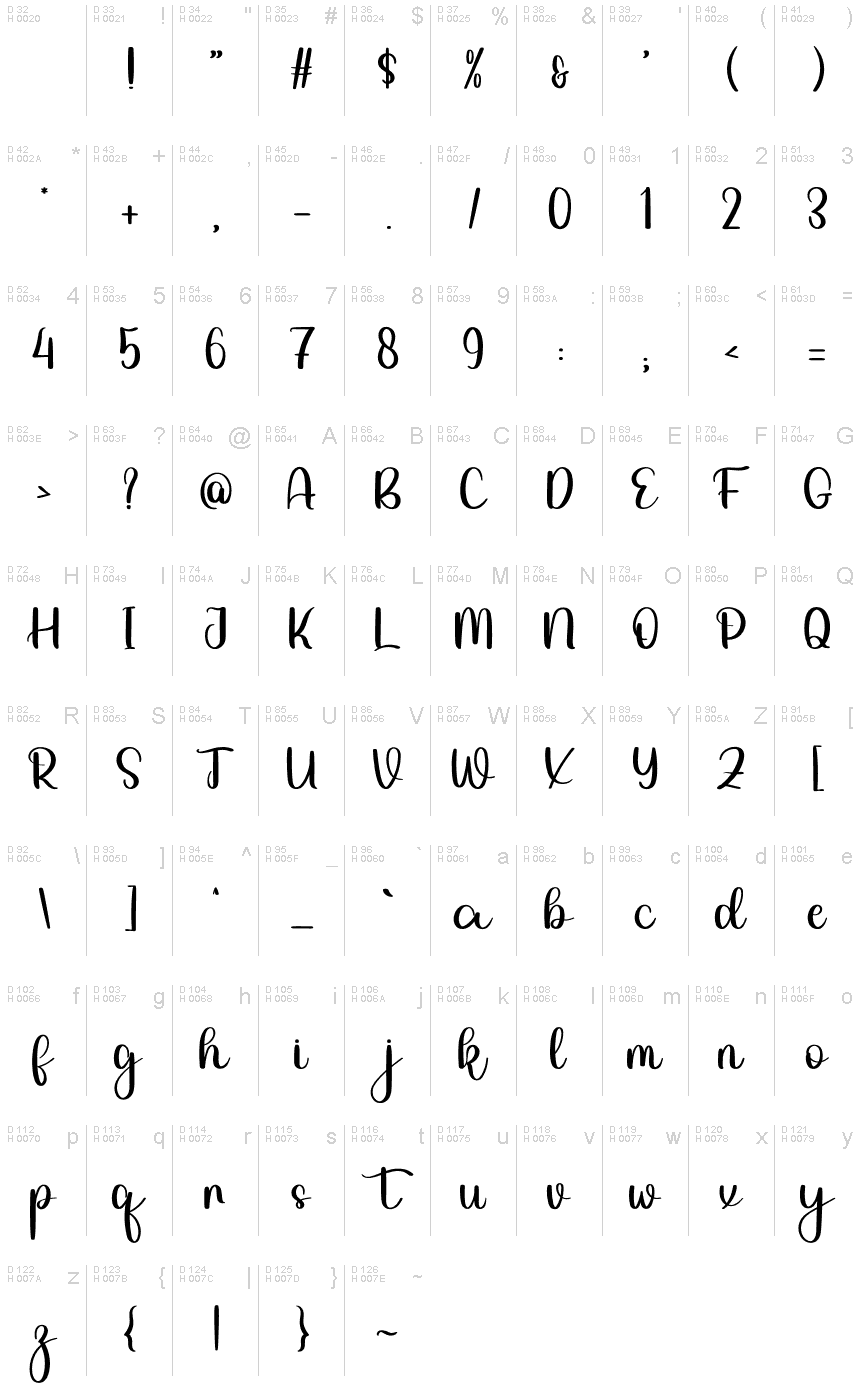
Melody
Melody is a light handwritten font designed by Inermedia Studio. Perfect for creating handwritten cards, invitations, and posters, Melody is the ideal choice for projects looking to add a personal touch. It can also be used in logos and branding designs.